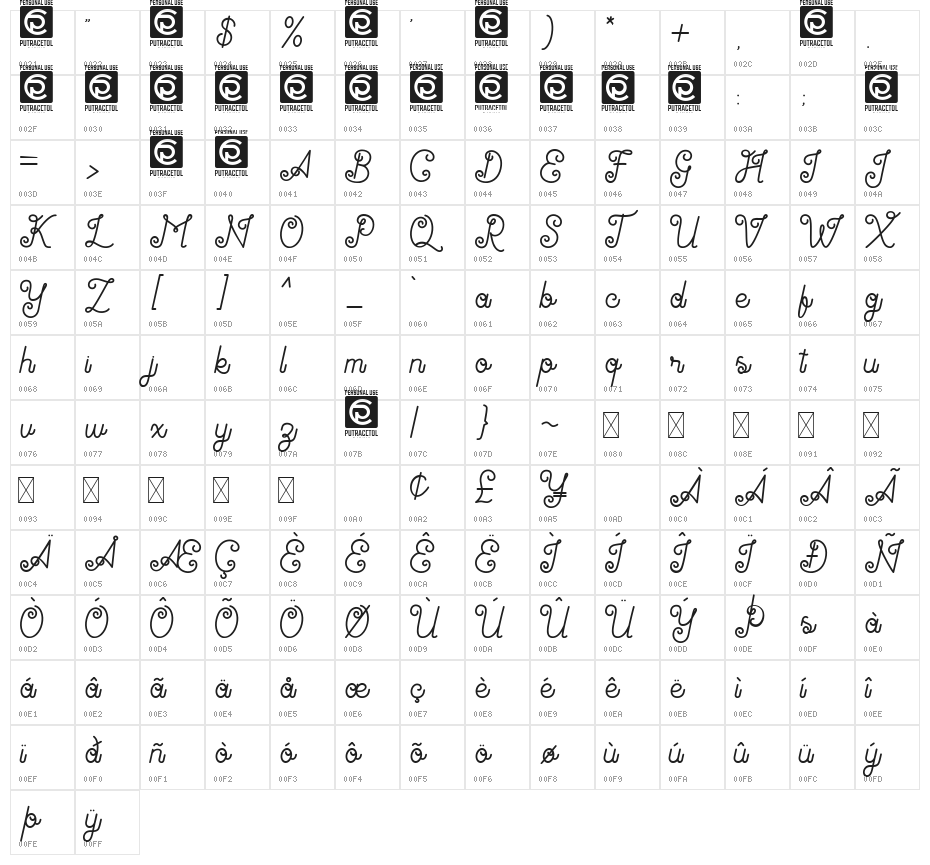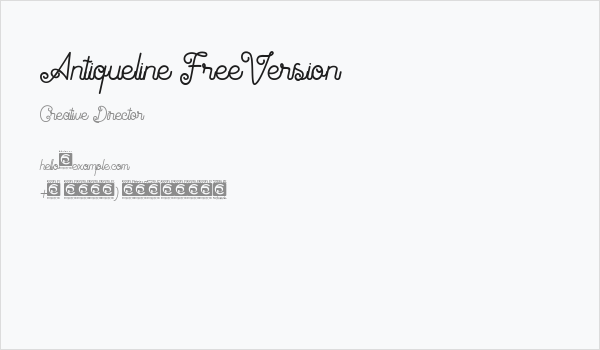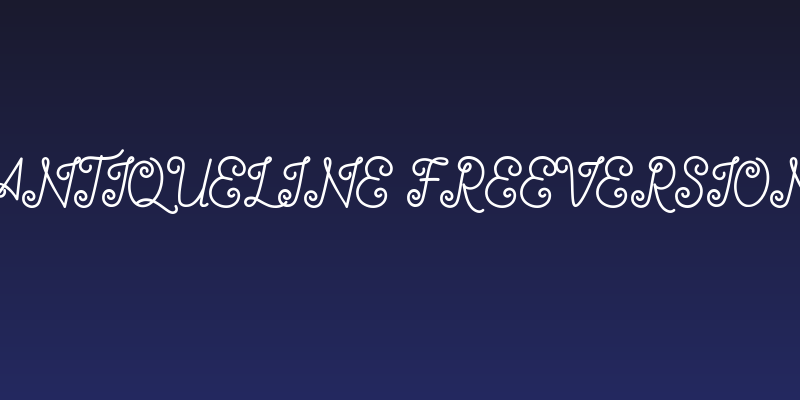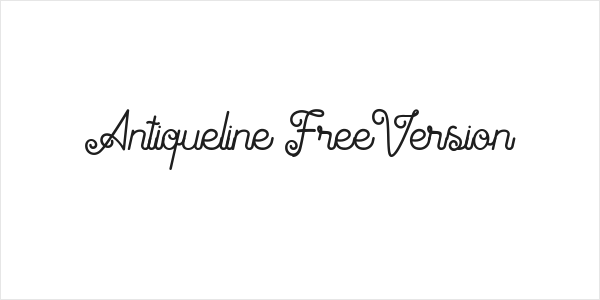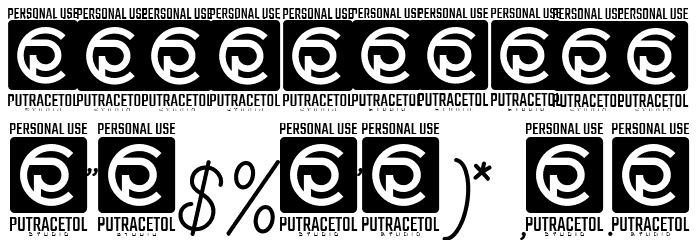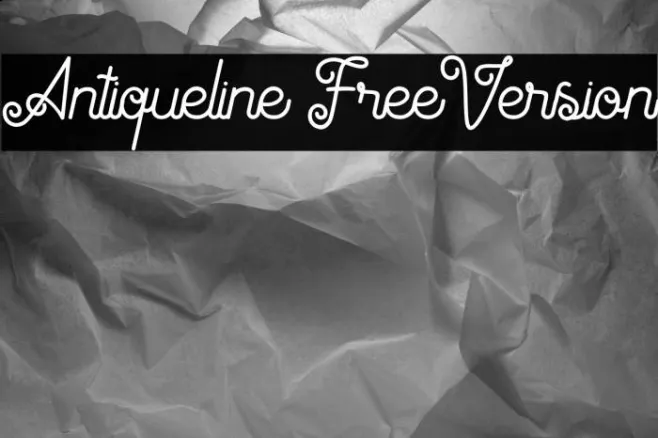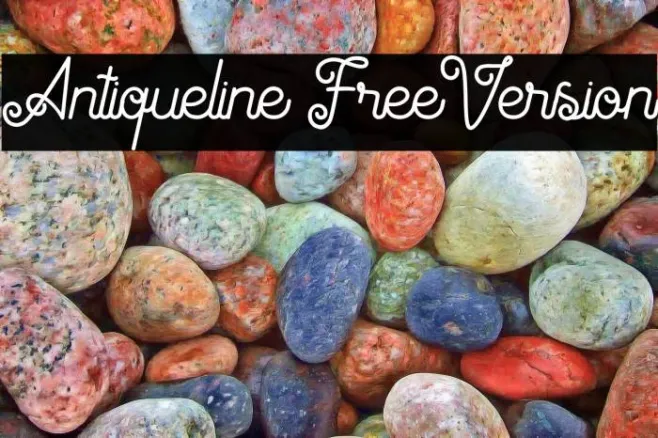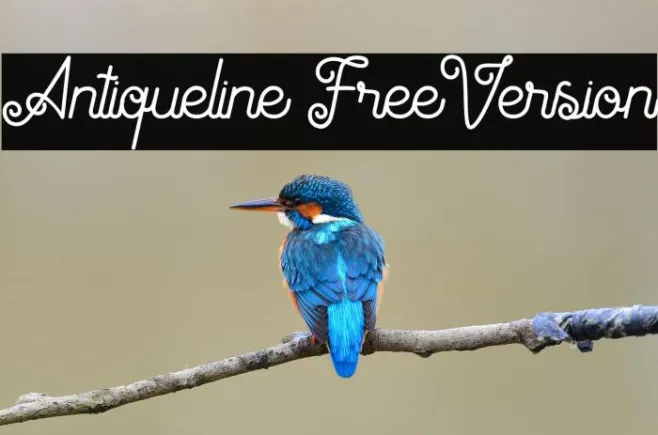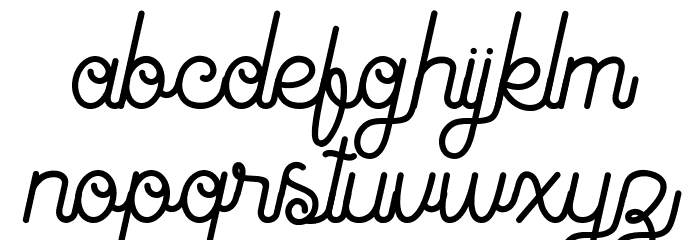
Antiqueline FreeVersion Font
Antiqueline FreeVersion Description
This font features an elegant, flowing script style with a decorative flair. Each character is crafted with a smooth, continuous line that often loops or curls, giving it a whimsical and artistic appearance. The uppercase letters are particularly ornate, with additional swirls and embellishments that add to the font's charm. The lowercase letters maintain a consistent style, offering a more subdued yet equally graceful look. The numerals and special characters are designed to match the overall aesthetic, ensuring a cohesive appearance across all text. This font is ideal for projects that require a touch of sophistication and creativity.